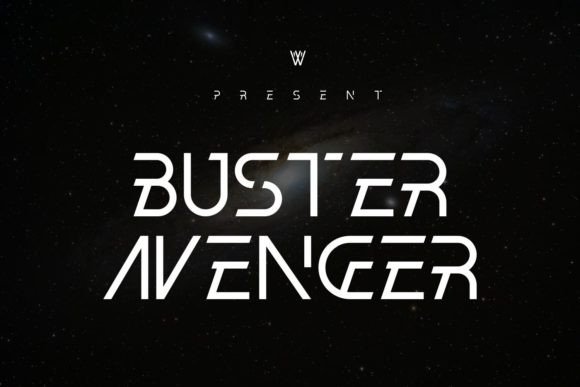
The Buster Avenger Font: A Futuristic Sans Serif for the Modern Designer
I’ll never forget the struggle I faced while working on a cyberpunk-themed project for a client. The brief was clear: create a visual identity that screams futuristic, high-tech, and edgy. But, as I scrolled through my font library, I couldn’t find the perfect match. That was until I stumbled upon the Buster Avenger font. With its sleek, sans-serif design and sharp lines, it was love at first sight! ✨
• ✨ Futuristic vibe: Buster Avenger nails the cyberpunk aesthetic with its geometric shapes and clean lines.
• ✅ Versatility: This font is perfect for a wide range of design projects, from logos and branding to posters and digital media.
• 💻 Readability: Even at small sizes, Buster Avenger remains crystal clear, making it ideal for body text and captions.
• 🎨 Customization options: With its range of OpenType features and glyphs, I can experiment with different styles and variations.
While Buster Avenger is an excellent font, it’s not without its quirks. 🤔 For instance:
• ⚠️ Limited serif options: As a sans-serif font, Buster Avenger might not be the best choice for projects requiring a traditional serif look.
• ⚠️ Some glyphs may require manual adjustment: Depending on the design, certain glyphs might need tweaking to achieve optimal spacing and alignment.
Rumor has it that Buster Avenger was created by a team of designers who wanted to push the boundaries of futuristic typography. Inspired by the likes of sci-fi movies and video games, they aimed to craft a font that embodies the spirit of innovation and technological advancement. While the true story behind Buster Avenger remains a mystery, one thing is clear: this font is a masterpiece of modern design.
Q: What is the primary theme of the Buster Avenger font?
A: The Buster Avenger font is designed with themes of space, technological advancement, cyberpunk, and sharpness.
Q: Is Buster Avenger suitable for body text?
A: Yes, Buster Avenger is a highly readable font, making it suitable for body text and captions.
Q: Does Buster Avenger support OpenType features?
A: Yes, Buster Avenger supports OpenType features, including glyphs and stylistic alternates, allowing for advanced typographic control.